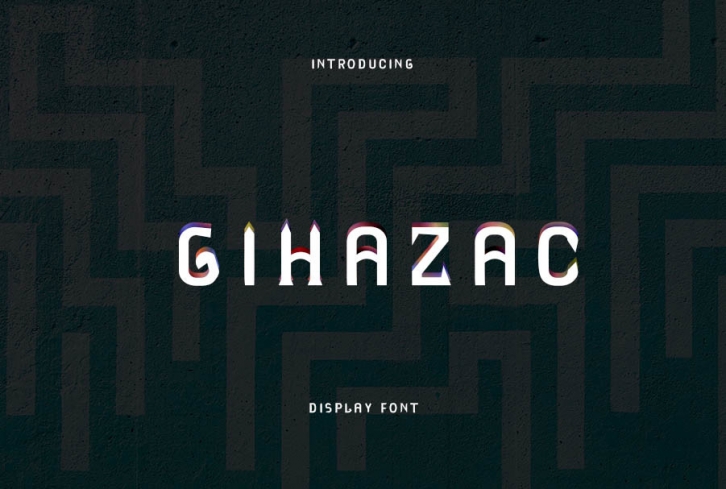
Gihazac is a cool and casual looking display font. Irrespective of the subject, this font will be an incredible asset to your fonts’ library, as it has the potential to elevate any creation.Â